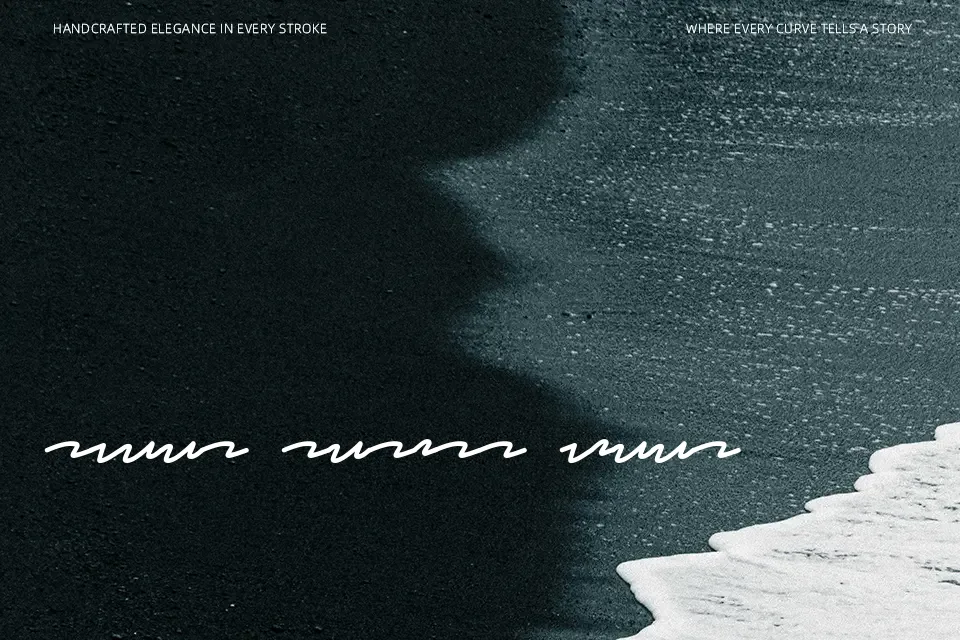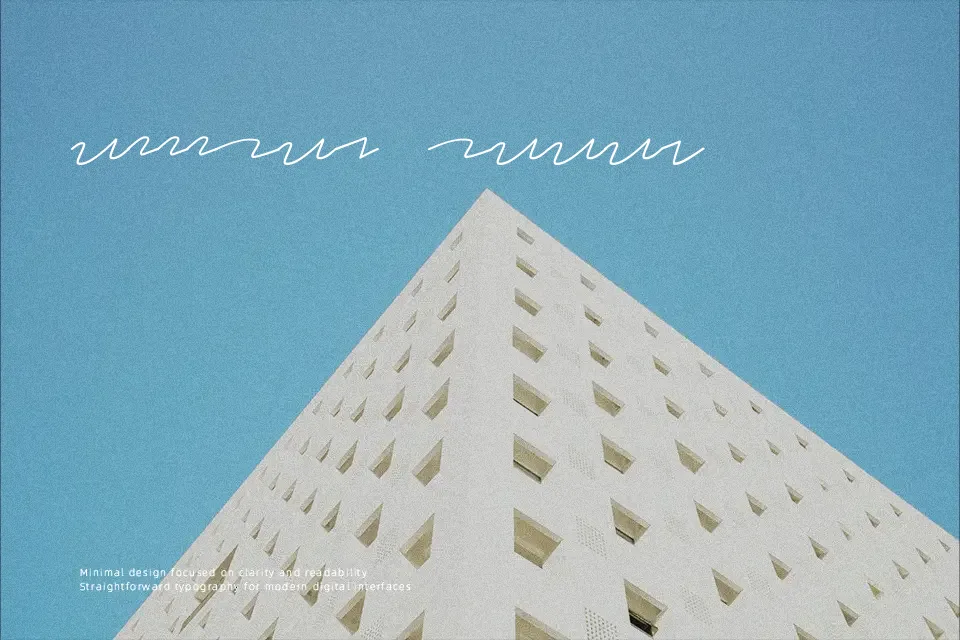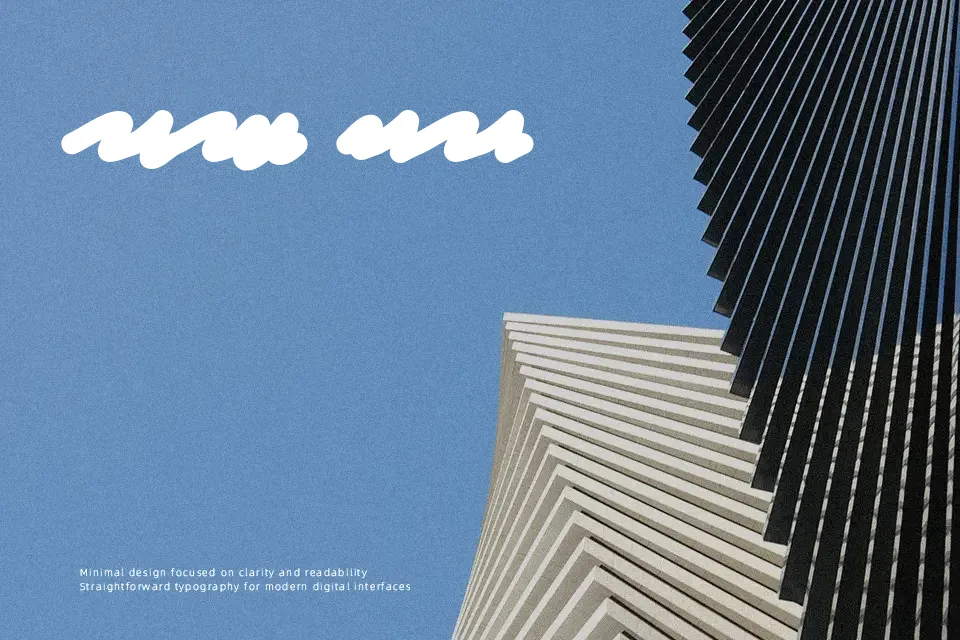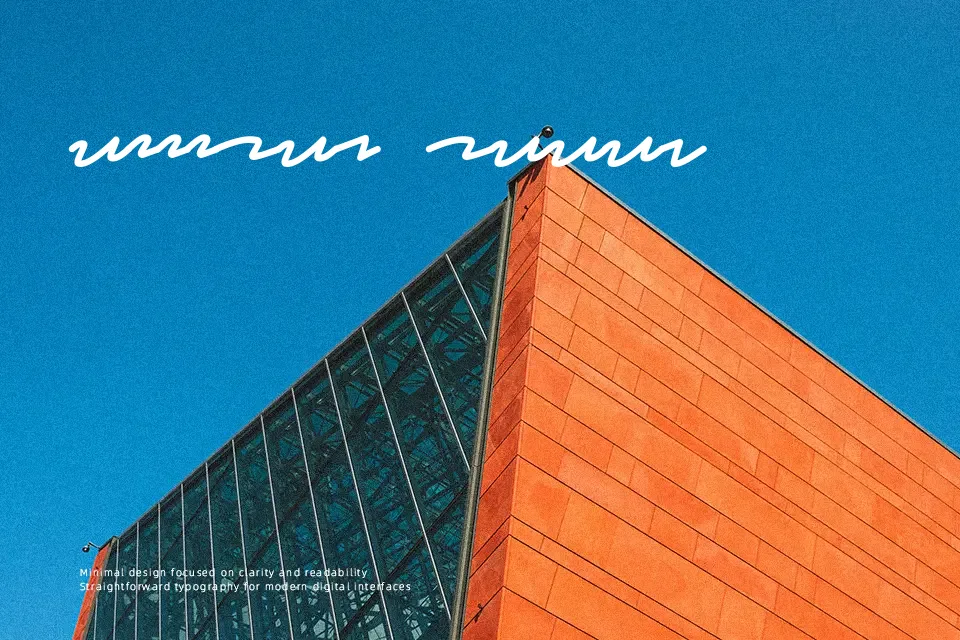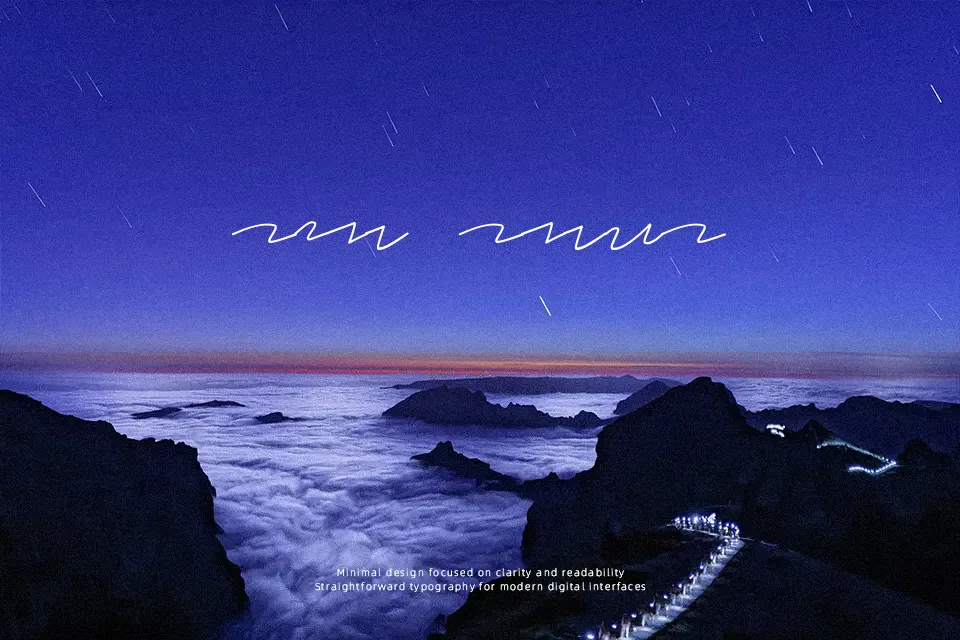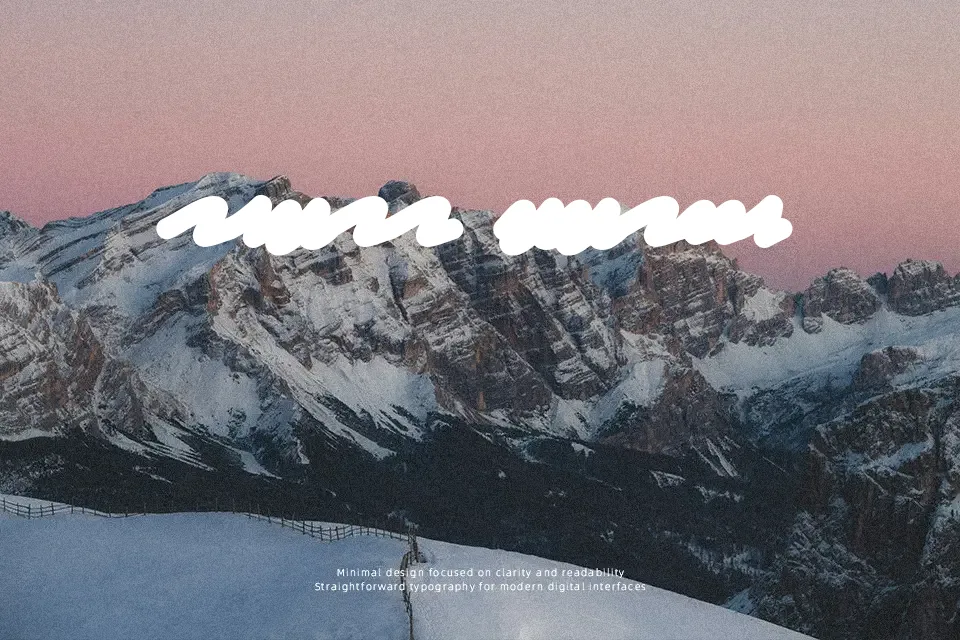
Redacted Script Font
Designed by Christian Naths
Redacted Script renders text as layered, hand-drawn strokes that read like fast marker scribbles rather than legible handwriting, so your layouts keep their rhythm without revealing any real content. The lines are casual, slightly uneven, and moderately dense, which helps approximate real text blocks while still clearly signaling that copy is temporary. It works especially well in wireframes, UX flows, dashboard previews, and privacy mockups where stakeholders tend to nitpick wording too early. If you need crisp readability, small-body copy, or accessibility-first typography, this font will get in the way and should stay out of production interfaces.
Low-fidelity wireframes and UX flows,
Redacted previews for data-privacy or censorship concepts,
Design presentations where you want layout feedback before copy edits
Body text that users must read and scan quickly,
Accessibility-focused products or documentation,
Brand systems that rely on clear, polished typography
Perfect for ui design and website, with a artistic and display style.